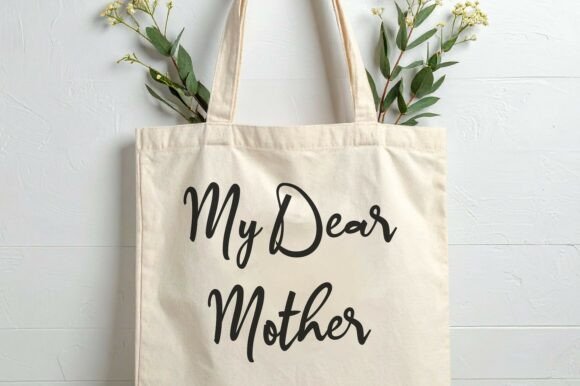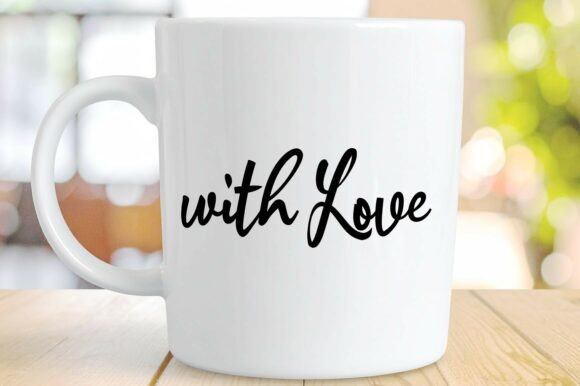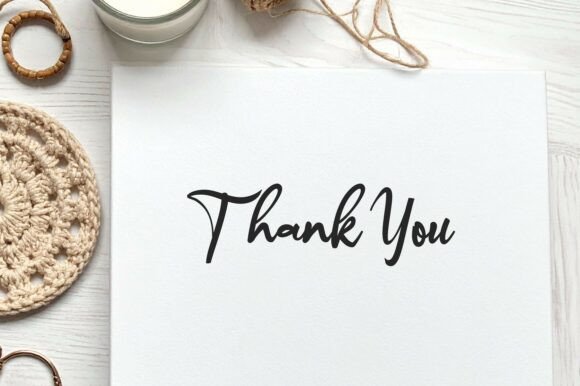
Aku Sayang Ibu Font: A Beautifully Handcrafted Script for Sincere Designs
In the world of typography, few fonts manage to capture the essence of warmth, tenderness, and personal connection as beautifully as the “Aku Sayang Ibu” font. This exquisitely handcrafted script font is designed to bring a touch of heartfelt sincerity to any design project, making it perfect for those looking to convey affection and intimacy through their work.
The Charm of Aku Sayang Ibu
“Aku Sayang Ibu” is more than just a font; it’s an expression of love and care. Its elegant, flowing strokes are reminiscent of genuine handwriting, imbuing any project with a personal touch that’s hard to replicate with standard fonts. This beautiful script font is ideal for designs that aim to tell a story or convey a message from the heart, such as greeting cards, personal letters, or even branding for businesses that want to establish a warm and inviting image.
What Makes Aku Sayang Ibu Stand Out?
So, what sets “Aku Sayang Ibu” apart from other script fonts in the market? Here are a few key characteristics that make it truly unique:
• Authentic Calligraphic Charm: Unlike many digital fonts that can look artificial or overly stylized, “Aku Sayang Ibu” boasts an authentic calligraphic charm that feels genuinely handcrafted.
• Gentle Readability: While it maintains a decorative flair, the font doesn’t compromise on readability. It’s designed to be easy on the eyes, making it perfect for both short phrases and longer texts.
• Seamless Flow: Each character in “Aku Sayang Ibu” flows seamlessly into the next, creating a natural rhythm that’s pleasing to read and look at.
• Delicate yet Distinct Personality: The font has a delicate balance of elegance and approachability, making it memorable without being overpowering or distracting.
Ideal Uses for Aku Sayang Ibu
“Aku Sayang Ibu” is incredibly versatile, making it suitable for a wide range of design projects. Here are some ideal uses for this beautiful font:
• Greeting Cards: Especially for occasions like Mother’s Day, anniversaries, birthdays, and weddings, where a personal touch can make all the difference.
• Personal Letters and Invitations: Add a touch of elegance and warmth to your letters and invitations, making them feel more special and heartfelt.
• Branding and Packaging: For businesses that want to convey a sense of warmth, care, and personal connection with their customers, “Aku Sayang Ibu” can be a perfect fit.
• Stationery and Journaling: Enhance your stationery, journals, and planners with a font that feels personal, inviting, and elegant.
Why Designers and Crafters Love Aku Sayang Ibu
Designers and crafters are always on the lookout for fonts that can help their projects stand out and convey the right emotions. “Aku Sayang Ibu” has quickly become a favorite among creatives for several reasons:
• Emotional Connection: The font helps create an emotional connection with the audience, making designs feel more sincere and heartfelt.
• Versatility: Its versatility means it can be used in a variety of projects, from digital designs to print materials.
• Ease of Use: Despite its elegant appearance, “Aku Sayang Ibu” is easy to use and works well across different design software and platforms.
In conclusion, “Aku Sayang Ibu” is a beautifully handcrafted script font that brings a touch of warmth, tenderness, and personal connection to any design project. Its unique blend of authentic calligraphic charm, gentle readability, and seamless flow makes it an excellent choice for designers and crafters looking to create sincere and heartfelt designs. Whether you’re working on greeting cards, branding, or personal projects, “Aku Sayang Ibu” is sure to add that special something that makes your work memorable.